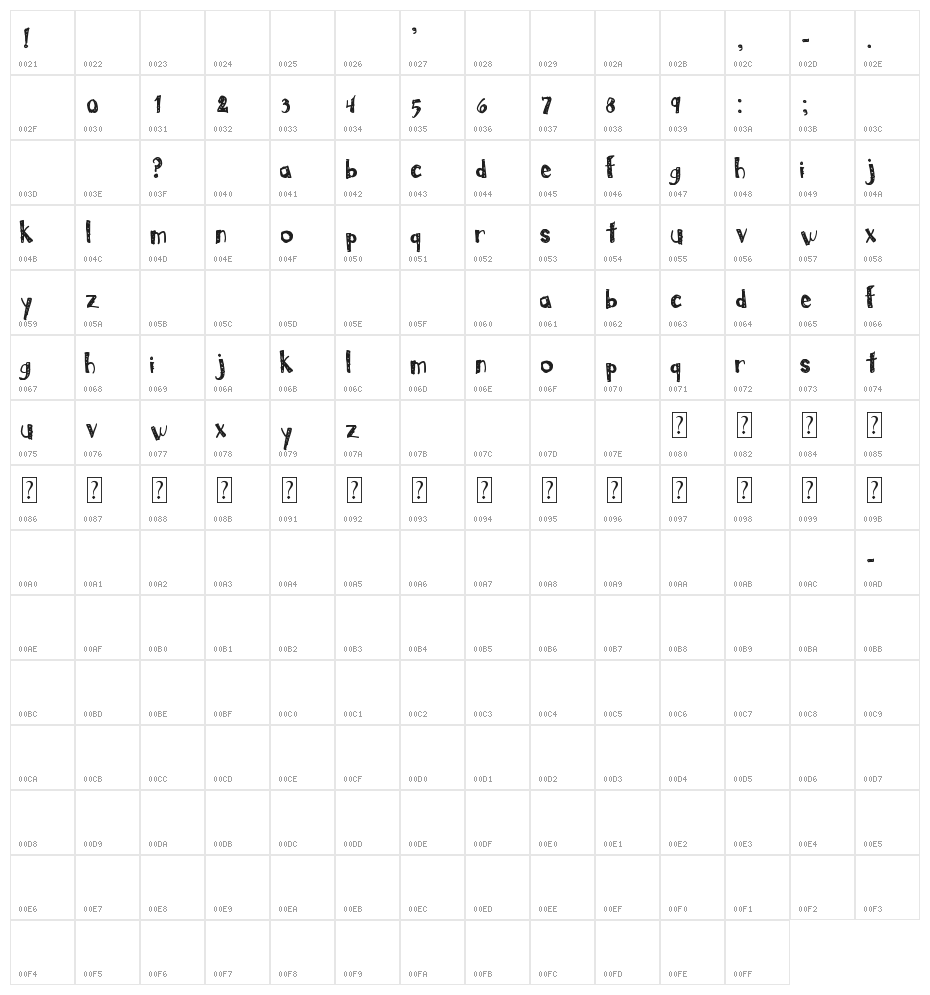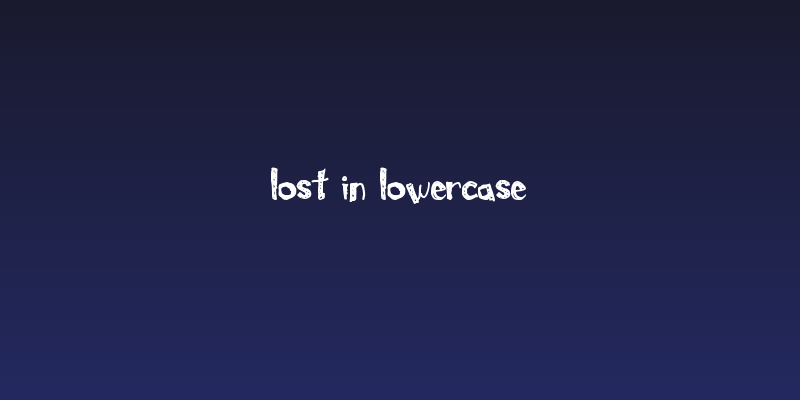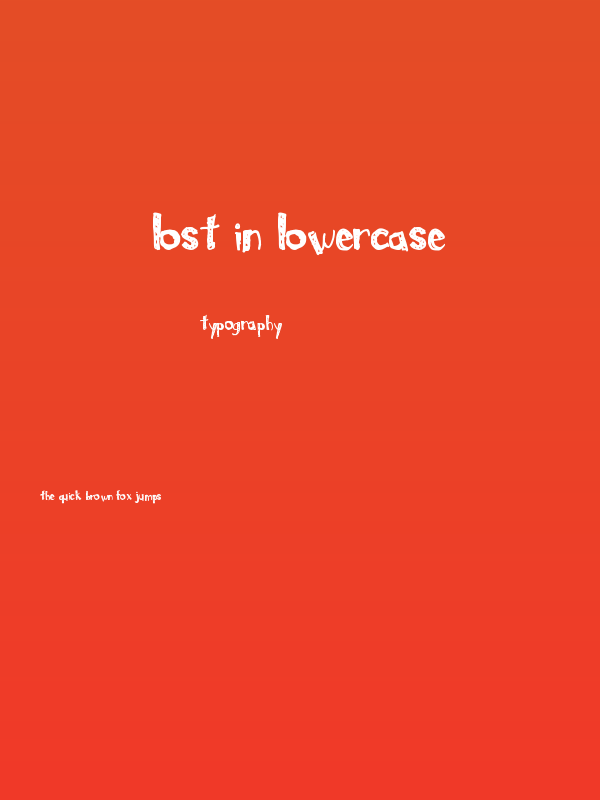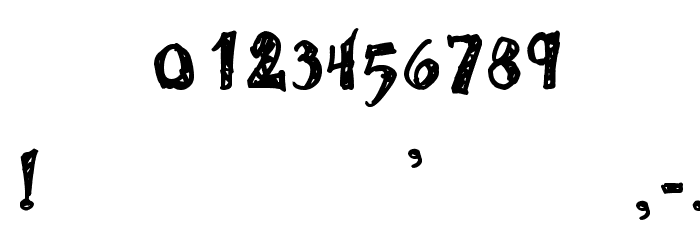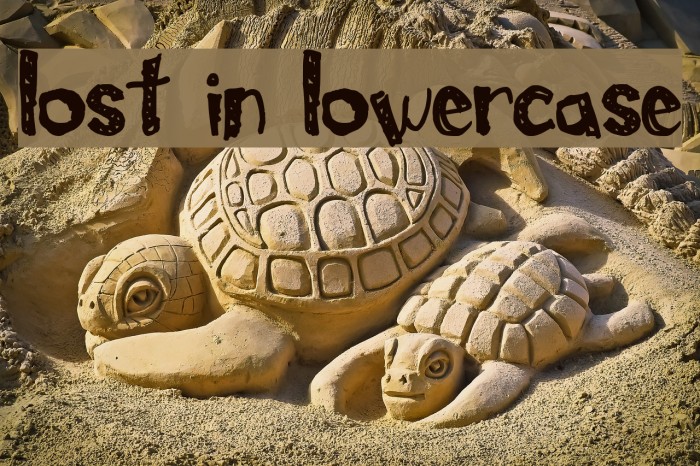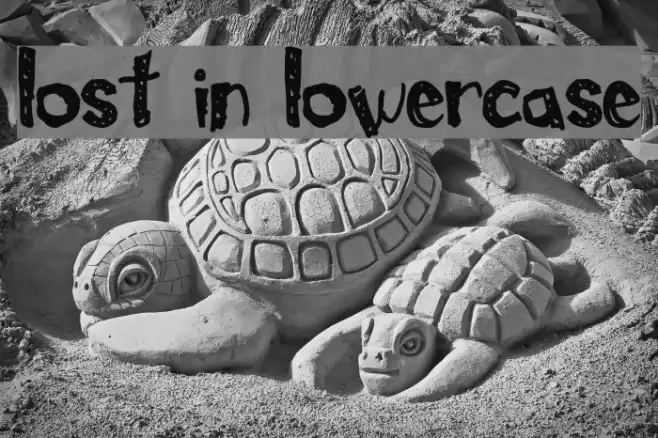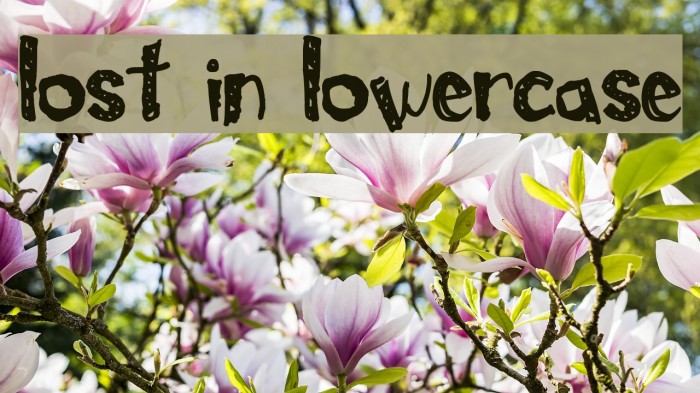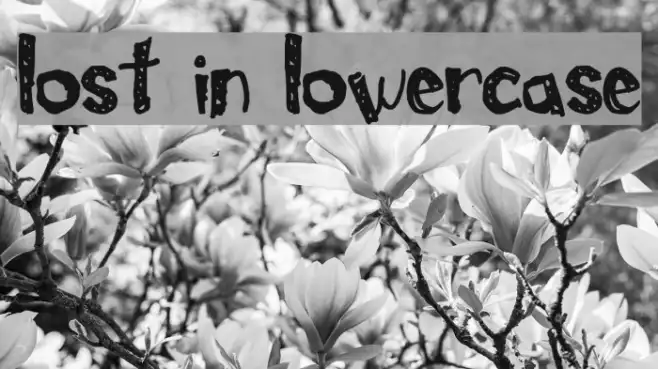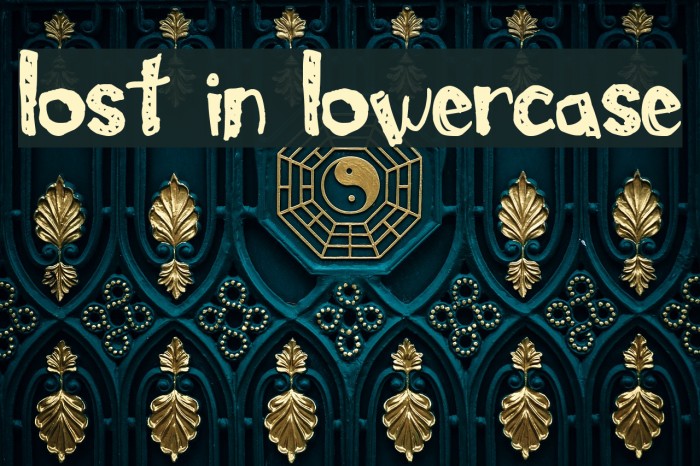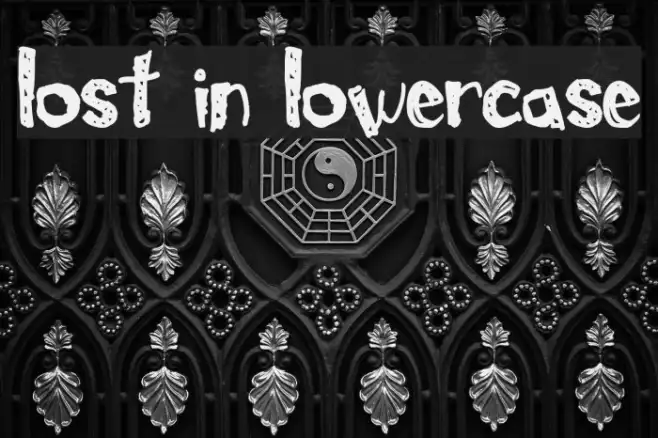
Lost In Lowercase Font
Lost In Lowercase Description
This font exhibits a playful and whimsical style, characterized by its uneven and irregular letterforms. The letters have a hand-drawn appearance, with a slightly rough texture that adds to its charm. The font maintains a consistent baseline, but the heights of the letters vary, giving it a lively and dynamic feel. The strokes are bold and thick, with a moderate contrast between thick and thin areas. The overall impression is casual and informal, making it suitable for creative and fun projects. The numbers and special characters follow the same playful style, ensuring a cohesive look across all elements.